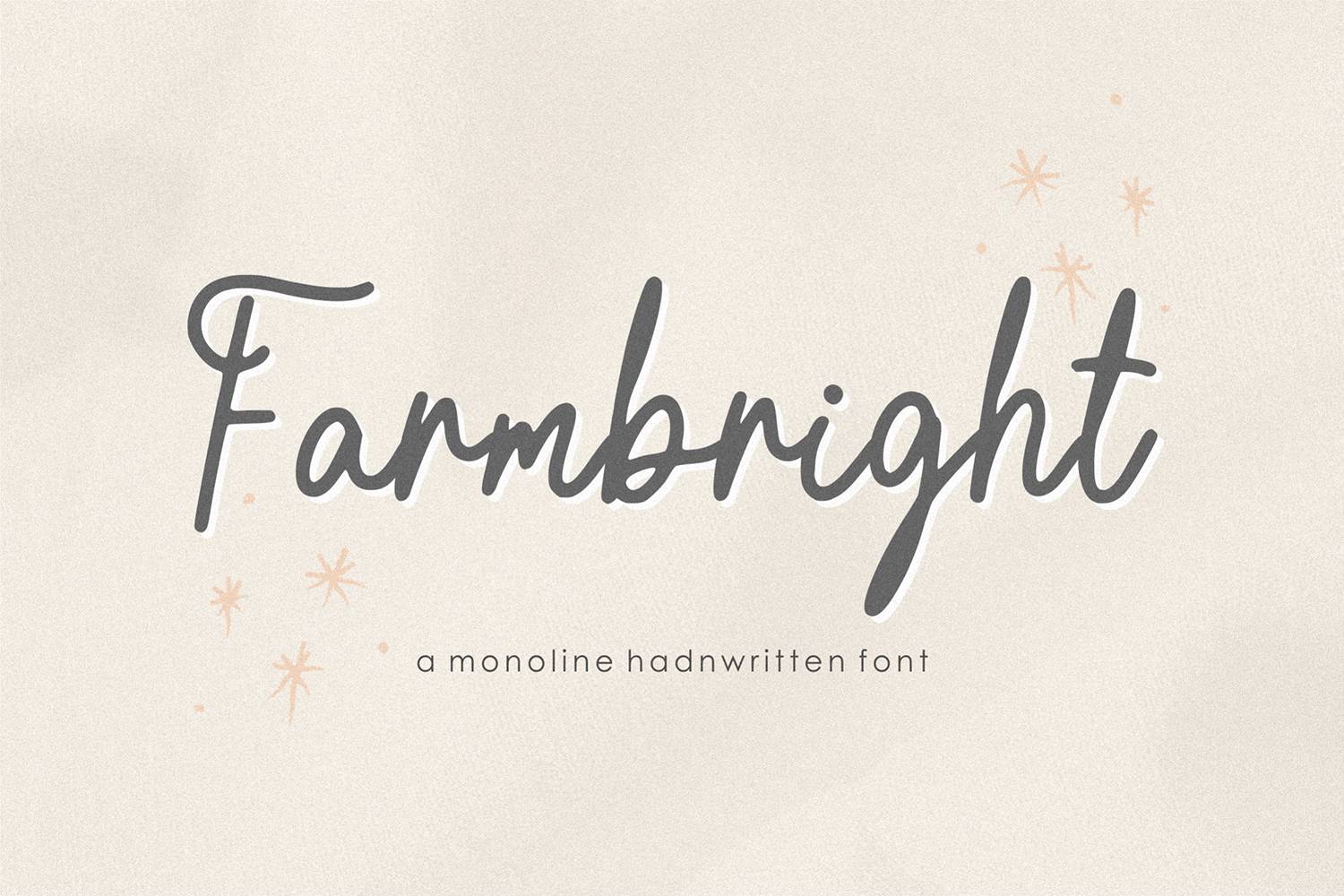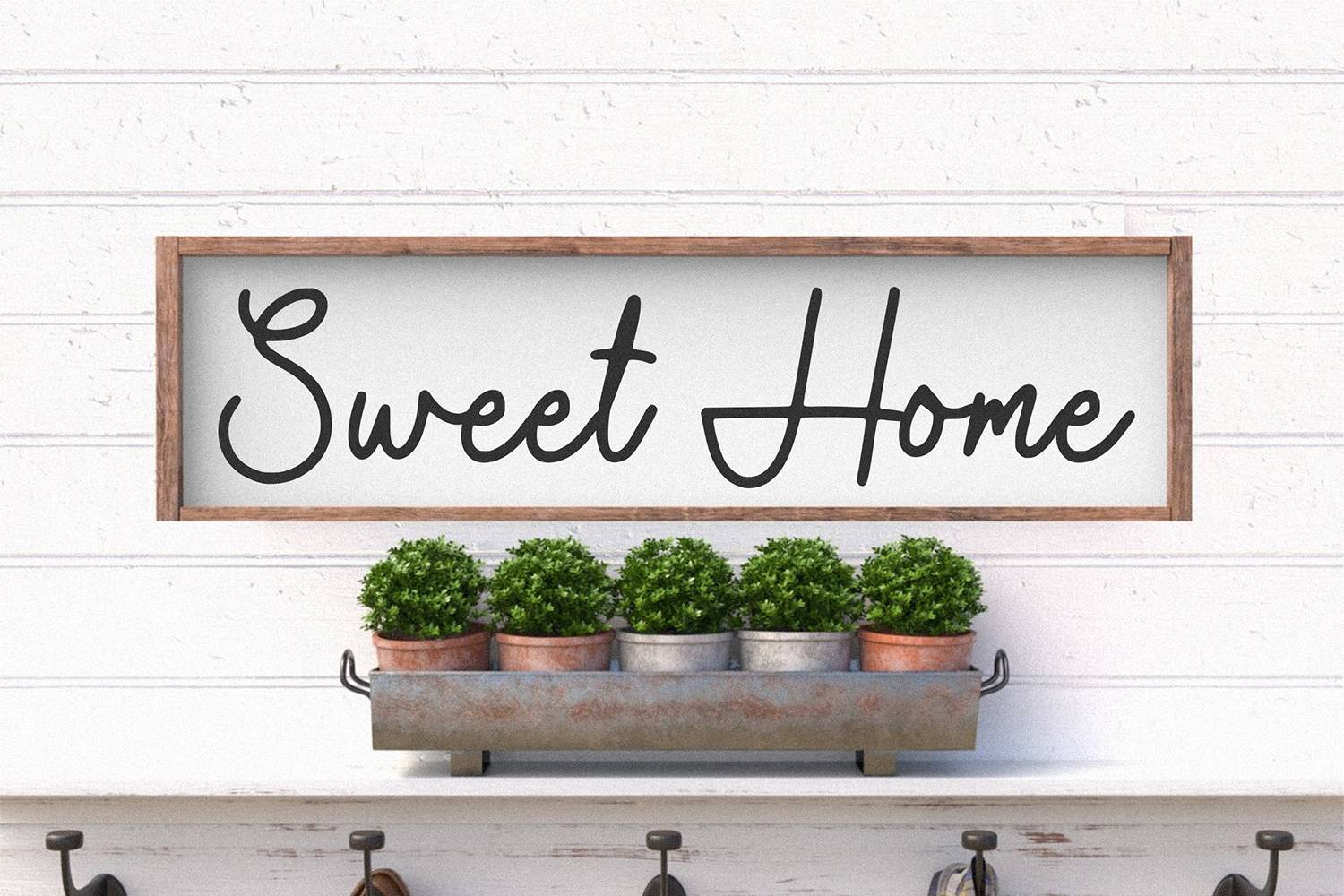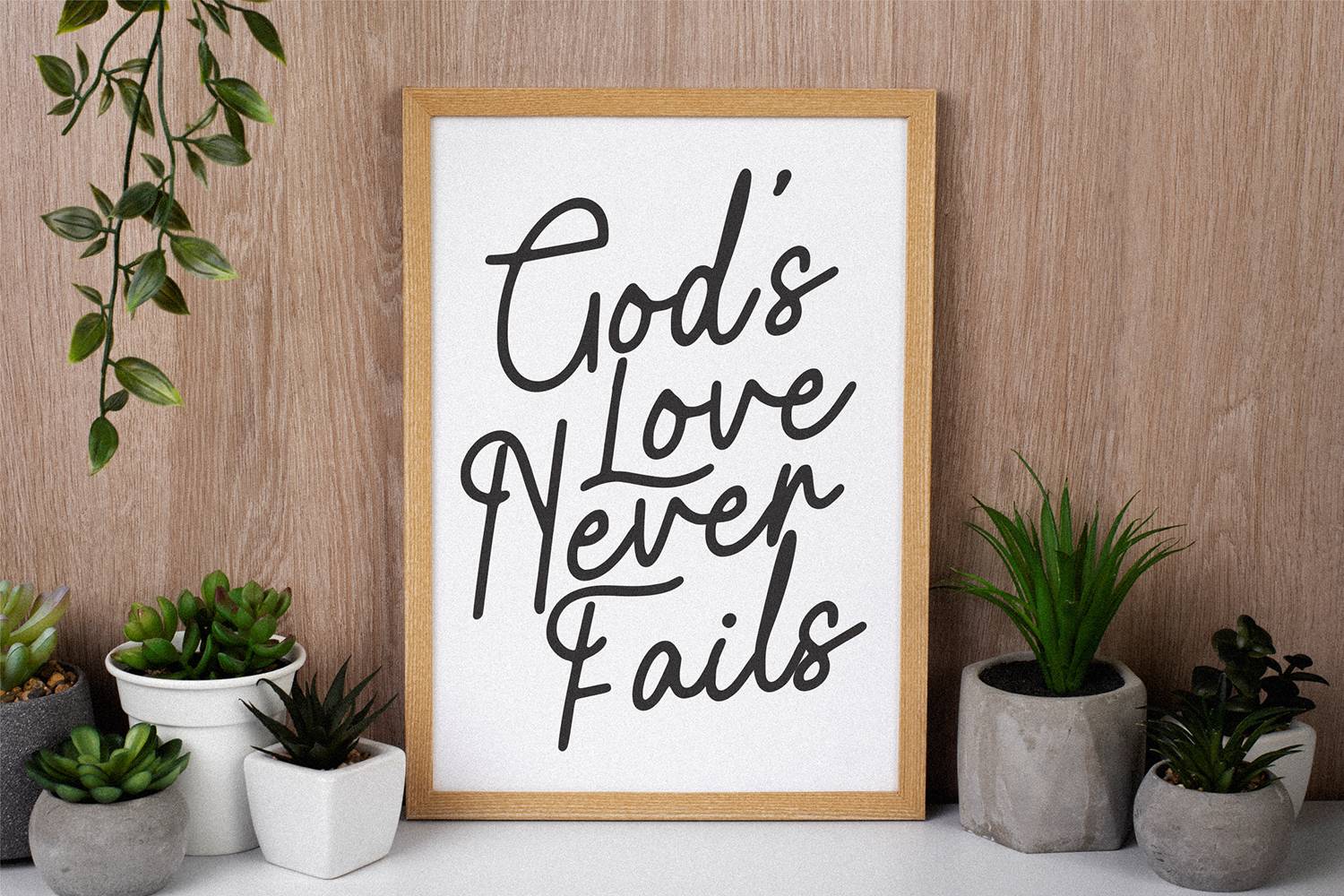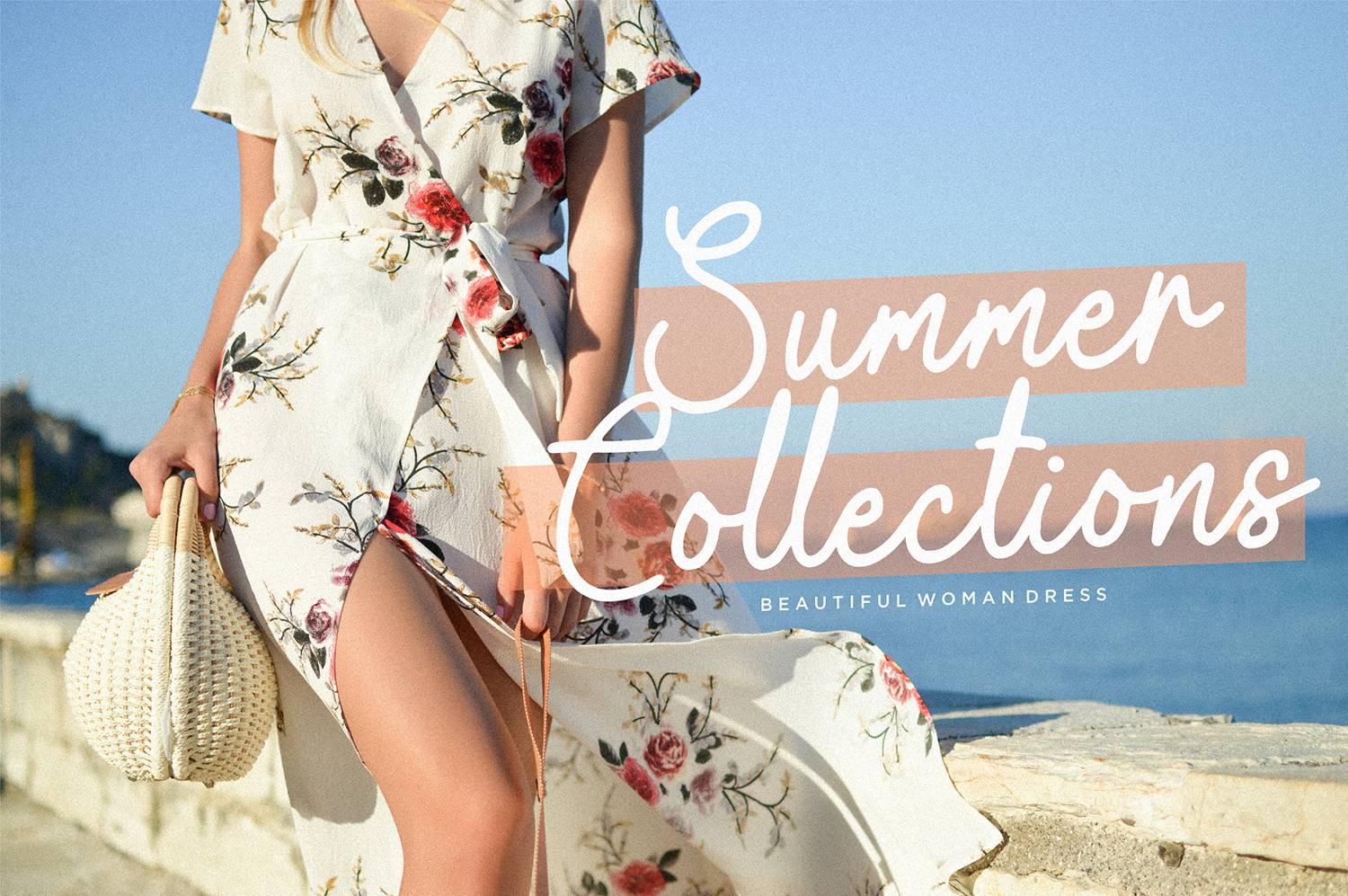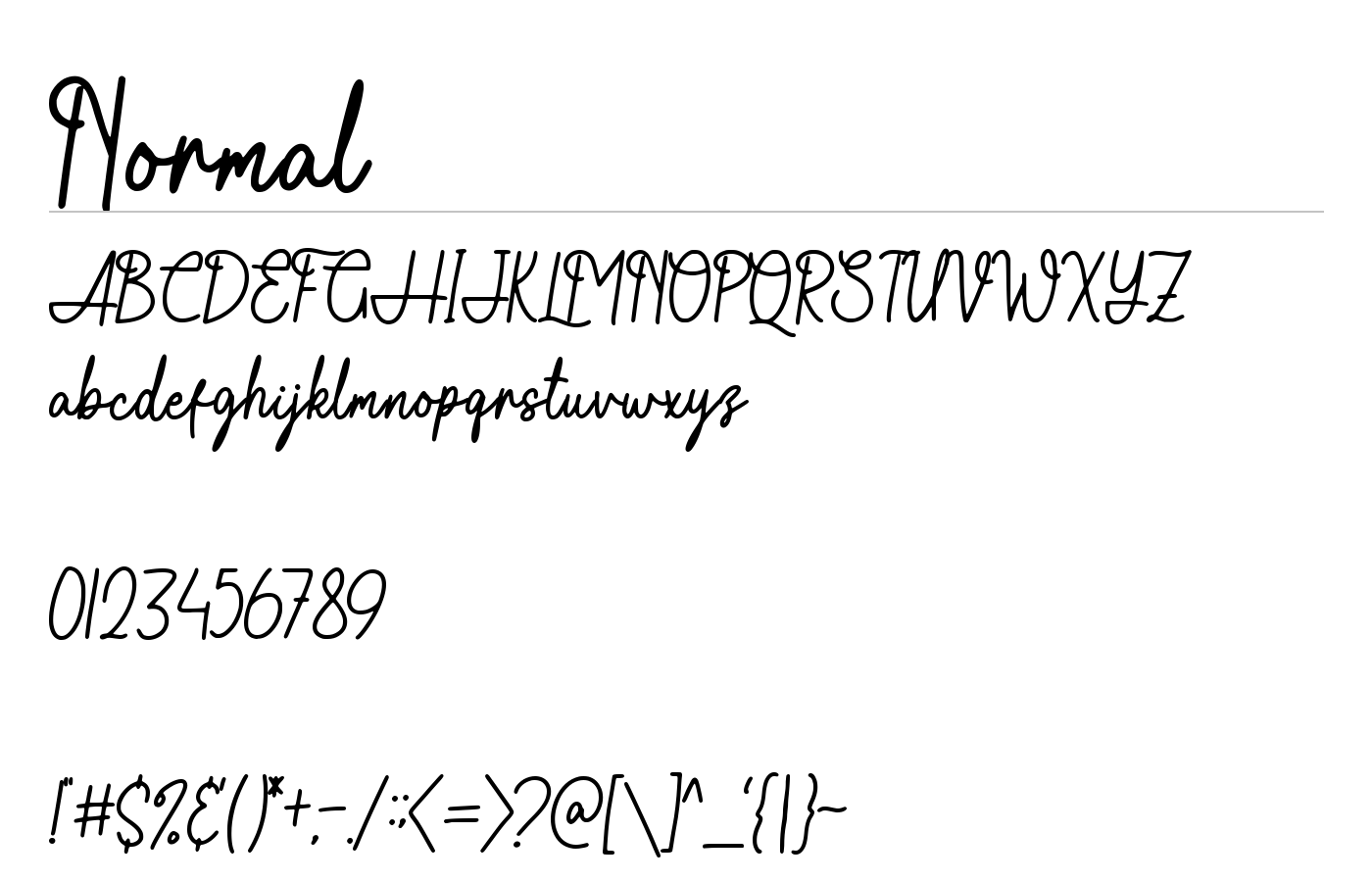
Farmbright is a playful, cursive script font with a lively and informal feel. Its thin, slightly irregular strokes and unique letterforms give it a handmade, charming character that works well for youthful branding, casual invitations, and creative projects seeking a personal touch. This font shines in designs needing warmth and personality without sacrificing readability.
Farmbright Font
About Farmbright Font